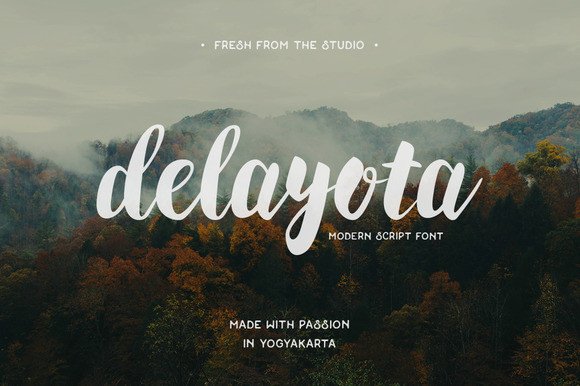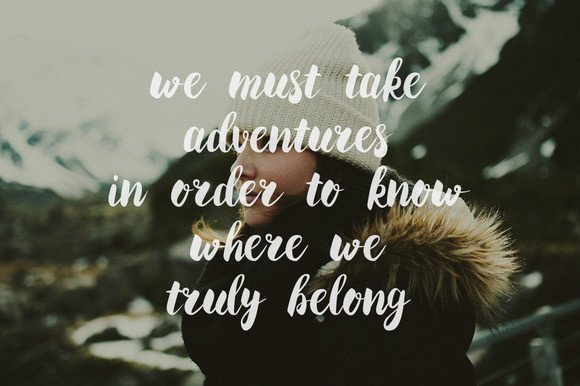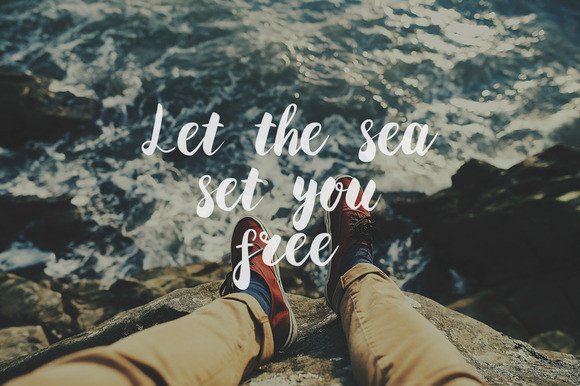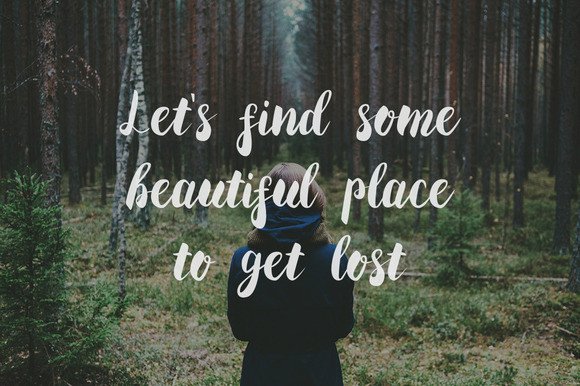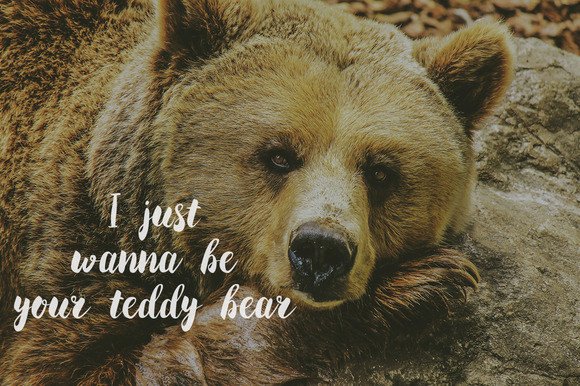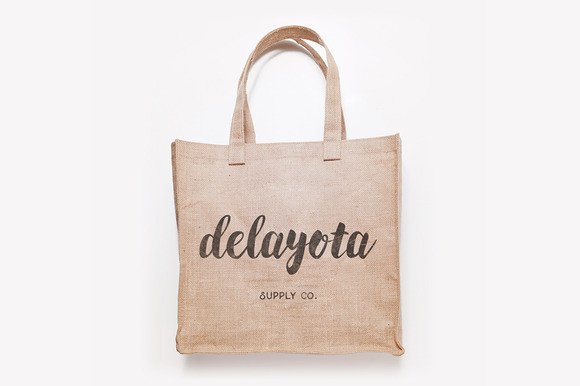
About Delayota Font
Delayota is a bold and strong handwriting font. The letters are round and smooth which makes the font very easy on the eyes. Because this cute font is so easy to read it makes it the perfect letter font to be placed on many items and it will work on simple designs and complex designs. The Delayota font is a true art piece for your collection. It is the type of handwriting font that you will keep re-using for many projects. You could for example use it to decorate your cups, print it on posters and shirts, or create beautiful wooden signs with it. Because the possibilities are endless you can re-use this cool font without getting bored of it.